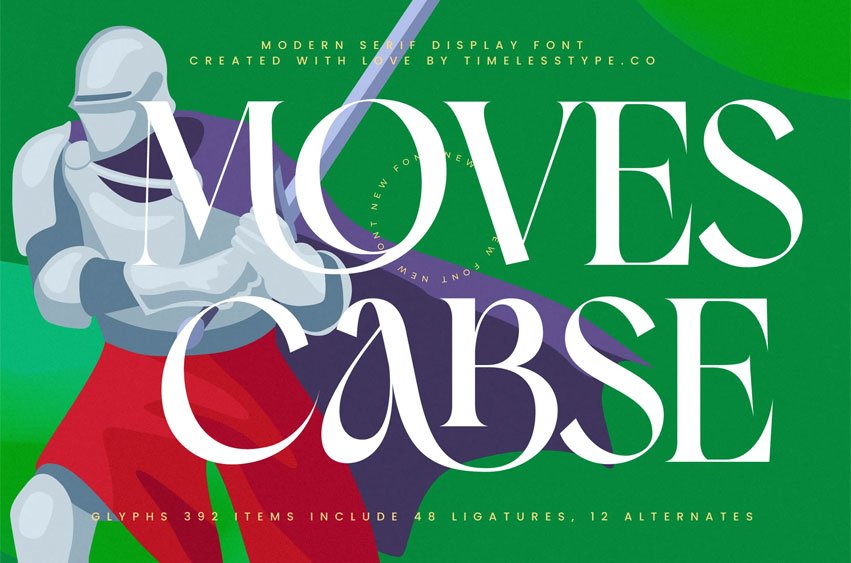
Moves Cabse Font is a modern serif display font that combines sleek elegance with sharp, refined strokes. Its tall letterforms and graceful ligatures create a luxurious and timeless appearance, making it ideal for branding, editorial design, magazine covers, luxury packaging, and statement logos. With a balance of modern sophistication and classic charm, Moves Cabse is crafted to bring a bold yet elegant presence to any creative project.